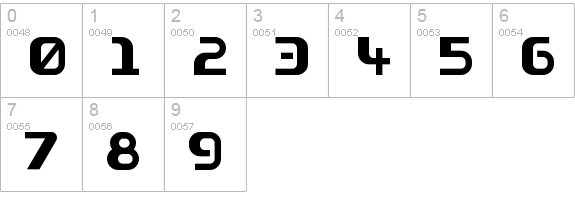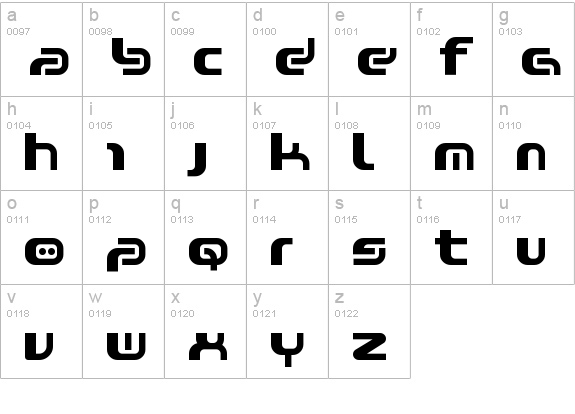
Warzone 97 Medium Left Font Details
Warzone 97 Medium Left is a balanced, medium-weight variant in the Warzone typeface family \xE2\x80\x94 well suited to sub-headlines, navigation, and balanced editorial work.
Warzone 97 Medium Left font is a bold and versatile typeface that exudes strength and power. With its distinct and edgy design, this font is perfect for adding a touch of grit and impact to your projects. Whether you're creating bold headlines, attention-grabbing posters, or eye-catching logos, Warzone 97 Medium Left font will make your designs stand out from the crowd. What makes this font even more appealing is that it is freely available to download at FontsMarket.com. This means that you can easily access and use this font without any restrictions, making it a valuable asset for designers and creatives alike. With just a few clicks, you can elevate your designs with the unique and captivating style of Warzone 97 Medium Left font. The versatility of this font is truly remarkable. Its medium weight strikes a perfect balance between impact and readability, making it suitable for various design purposes. The angular and sharp letterforms of Warzone 97 Medium Left font add a modern and dynamic touch to any project, making it particularly well-suited for contemporary and urban-inspired designs. Whether you're working on a branding project, a magazine layout, or even a video game interface, Warzone 97 Medium Left font will effortlessly enhance the visual appeal of your work. Its bold and commanding presence will capture attention and leave a lasting impression on your audience. So, why wait? Download Warzone 97 Medium Left font today from FontsMarket.com and unleash its power in your designs. With its free availability and exceptional design, this font is a must-have for any designer looking to make a bold statement. Embrace the strength and impact of Warzone 97 Medium Left font and take your designs to new heights.